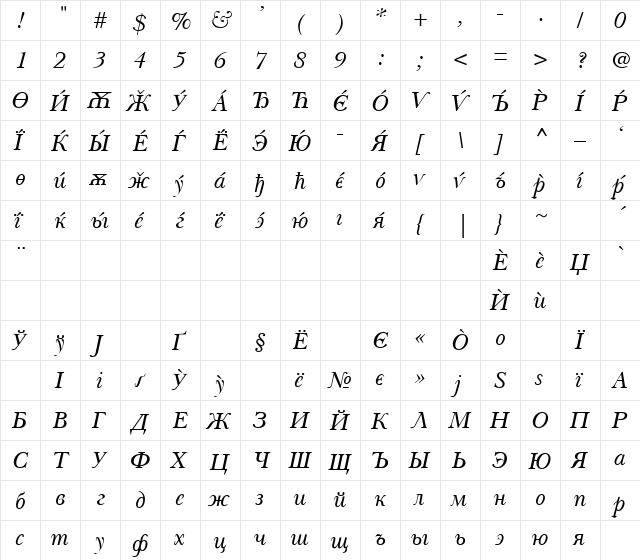
Baskerville Cyrillic Italic Font Preview
Baskerville Cyrillic Italic
Design Context for Baskerville Cyrillic Typeface
Baskerville Cyrillic takes a measured approach to typography — its balanced proportions and neutral character make it a reliable workhorse for both digital and print work. The slanted form adds forward momentum and visual energy.